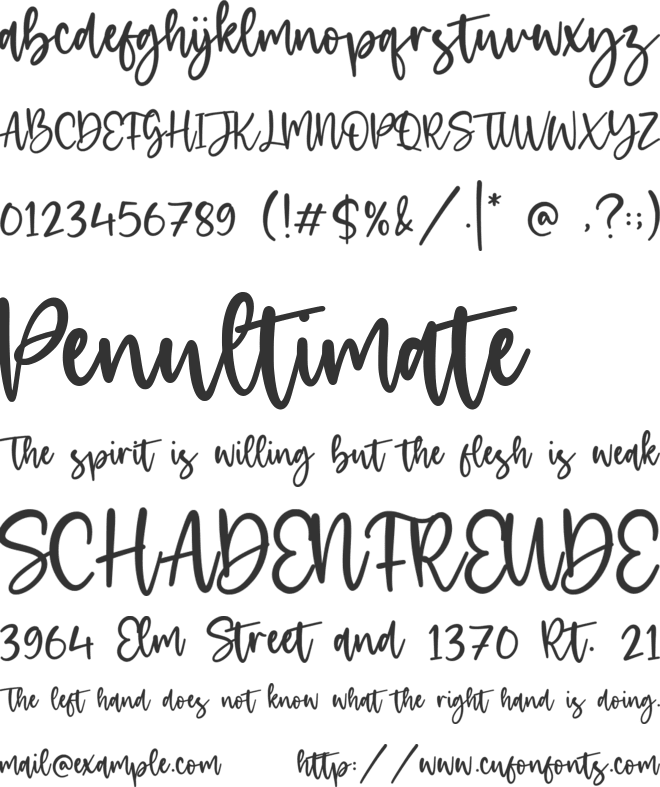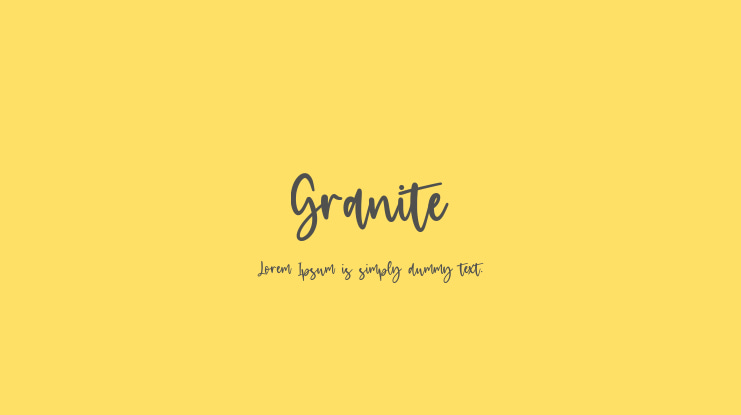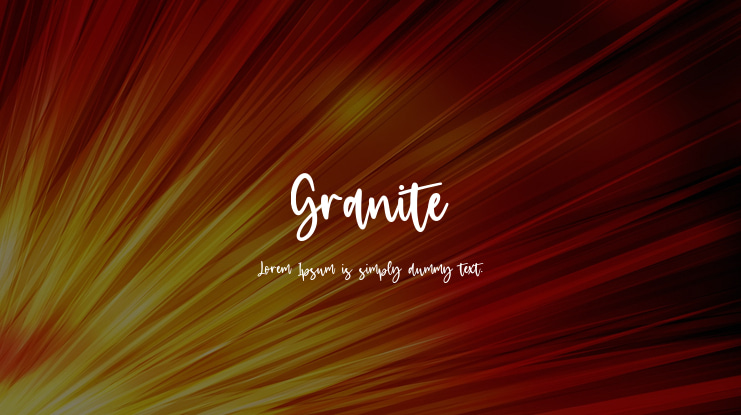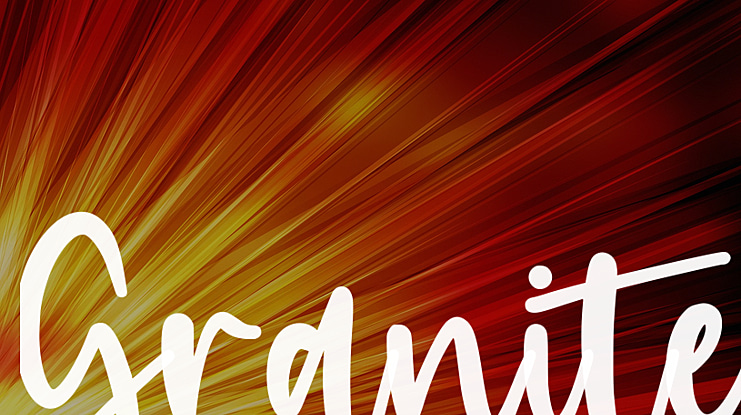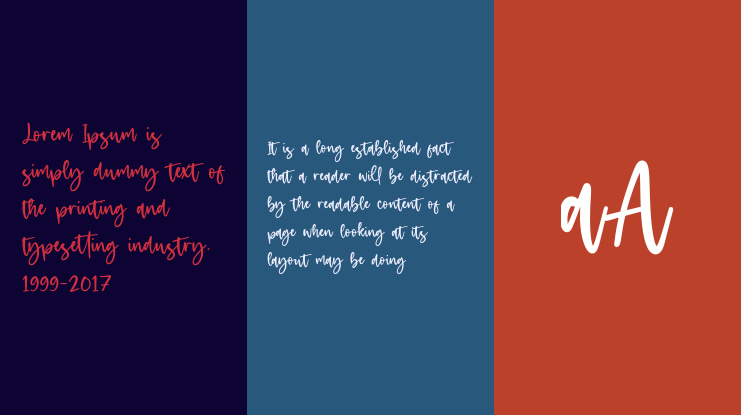
Granite Font
Introducing by Letterative Studio : Granite Font
Granite is a Modern Script Font
Granite is perfect for product packaging, branding project, megazine, social media, wedding, or just used to express words above the background.